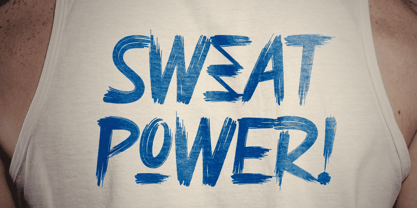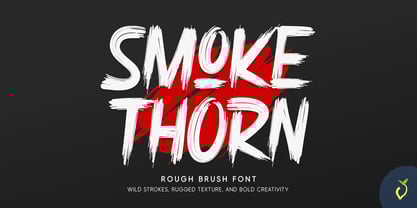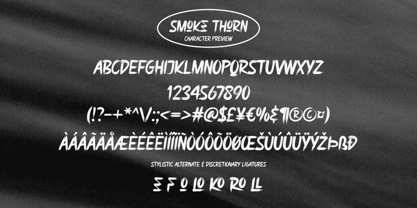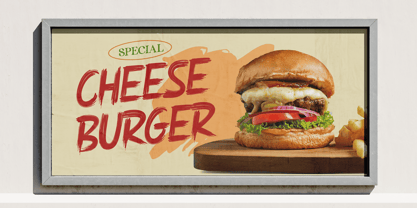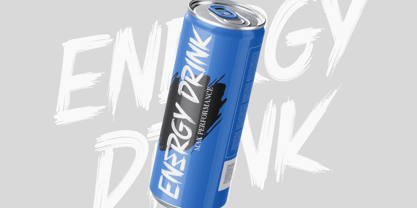
Smoke Thorn
by Lemonthe
The Smoke Thorn Font Family was designed by Dwi Ahidian and published by Lemonthe. Smoke Thorn contains 1 styles. More about this family
Smoke Thorn is a brush font with a rough style and sharp texture that delivers a bold and strong impression. This font is perfect for posters, branding, packaging, or other designs that require a striking and distinctive look. With dynamic strokes, Smoke Thorn adds a modern and edgy creative touch.